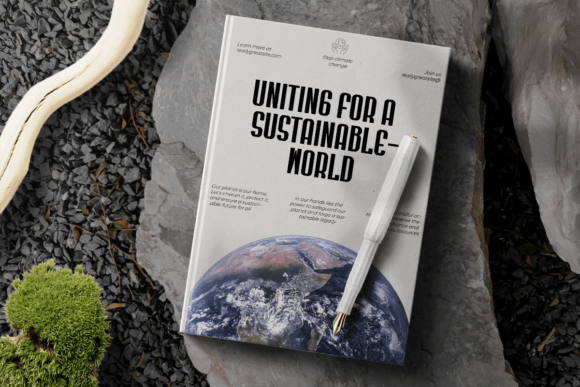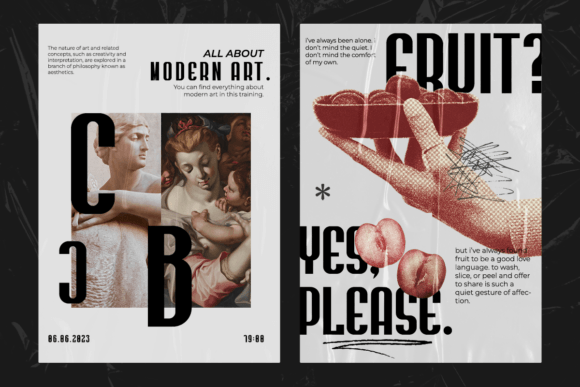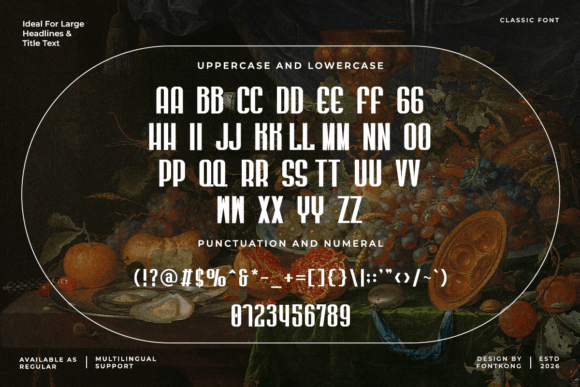
Discover the Elegance of Costarica Font: Elevate Your Designs with a Modern Sans Serif Typeface
In the world of typography, the right font can make all the difference in elevating your creative projects from ordinary to extraordinary. For designers and crafters seeking a sleek, contemporary, and versatile typeface, look no further than the Costarica Font. This modern sans serif font is meticulously designed to bring a touch of minimalist elegance and refined simplicity to a wide array of applications, including branding, digital media, packaging, and editorial design.
The Essence of Costarica Font
Costarica Font embodies the perfect blend of form and function, characterized by its crisp lines, geometric shapes, and a modern aesthetic that appeals to the sensibilities of contemporary design. Its minimalist design approach ensures that it remains versatile and highly legible across various mediums, from digital screens to print materials. Whether you’re crafting a compelling logo, designing a website, or creating engaging print materials, Costarica provides a clean and polished look that ensures your work stands out in a crowded creative landscape.
Key Features of Costarica Sans Serif Font
- Modern Aesthetic: With its sleek and contemporary design, Costarica brings a fresh perspective to your creative projects, making them instantly more appealing and professional.
- Versatile Functionality: This font is not just for one specific use; it’s incredibly versatile, suitable for a variety of applications ranging from corporate branding to digital content creation, and from packaging to editorial design.
- High Legibility: The clear and simple design of Costarica ensures high legibility, making it an excellent choice for both headings and body text.
- PUA Encoded: Being PUA (Private Use Area) encoded, Costarica offers ease of access to all its glyphs and swashes. This feature allows designers to unleash their creativity without any typographical limitations.
Applications of Costarica Font
The adaptability of Costarica Font makes it an invaluable asset for designers across various projects:
- Branding: Create memorable and impactful brand identities with the distinctive yet approachable look of Costarica.
- Digital Media: Enhance your website, social media posts, and digital advertisements with a font that looks great on screens.
- Packaging: Stand out on store shelves with packaging that boasts a clean, modern appeal.
- Editorial Design: Elevate magazines, newspapers, and blogs with a sophisticated and readable typeface.
Why Choose Costarica Font?
In a sea of typefaces, Costarica Font distinguishes itself through its unique blend of modernity, simplicity, and functionality. Here are a few compelling reasons to choose Costarica for your next project:
- Unique yet Versatile: Offers a fresh take on sans serif fonts, suitable for a broad spectrum of design needs.
- Easy to Use: PUA encoding allows for straightforward access to a wide range of glyphs and swashes.
- High-Quality Design: Professionally crafted to ensure your projects look polished and professional.
Costarica Font is more than just a typeface; it’s a design companion that can elevate your creative projects to new heights. Its sleek design, combined with versatile applications and ease of use, makes it an indispensable tool for designers and crafters aiming to leave a lasting impression. Whether you’re working on a branding project, digital content, or print materials, Costarica Sans Serif Font is your go-to choice for a clean, modern, and impactful look. Embrace the refined simplicity of Costarica and discover a world of limitless creative possibilities.